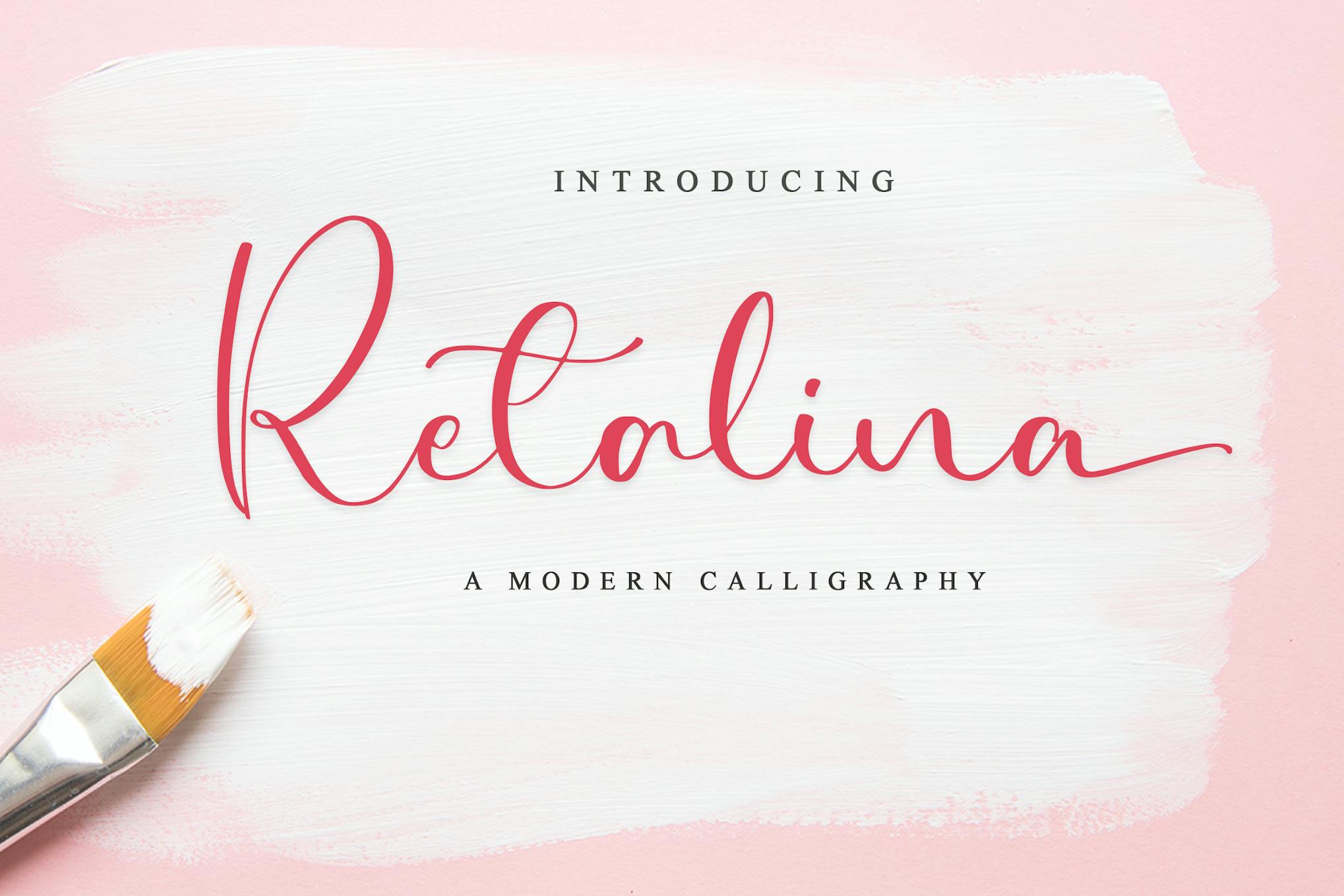
Retalina - Wedding Font
The Retalina - Wedding Font excels in elegant design applications including refined wedding invitations, sophisticated bridal branding, elegant ceremony logos, graceful product packaging, refined business cards, elegant portfolios, sophisticated greeting cards, graceful social media graphics, elegant event signage, and refined marketing materials. Its elegant script style makes it perfect for projects requiring graceful elegance that communicates sophistication and establishes refined brand positioning with audiences seeking elegant wedding experiences and sophisticated refinement.
What makes the Retalina - Wedding Font genuinely exciting is its exceptional ability to capture the refined sophistication and graceful beauty of elegant weddings through delicately crafted letterforms. The font features flowing, refined strokes with elegant flourishes and sophisticated proportions that create a distinctly graceful appearance. Each character displays remarkable attention to elegant detail with refined curves, sophisticated connections, and graceful spacing that give text a beautifully elegant, hand-lettered quality. The font's refined character and sophisticated rhythm create an atmosphere of graceful elegance while maintaining elegant sophistication and wedding authenticity.
The Retalina - Wedding Font family typically includes regular weight with extensive character coverage, featuring uppercase and lowercase letters, numerals, punctuation marks, and international characters. The typeface often incorporates stylistic alternates, contextual ligatures, and elegant swashes that enhance its signature refinement. These additional elements provide designers with creative flexibility to customize text appearance and achieve more natural-looking sophisticated handwriting that reflects the font's elegant and refined character.
This sophisticated signature font distinguishes itself through its remarkable balance of elegant charm and refined presentation. Unlike basic or unrefined fonts that lack elegant appeal, Retalina - Wedding Font embraces the power of sophisticated design to create graceful connections with elegant wedding audiences. The font's refined character makes it essential for elegant wedding planners, sophisticated brands, and graceful celebration businesses where creating refined wedding experiences and elegant memories is fundamental to success in sophisticated wedding markets.